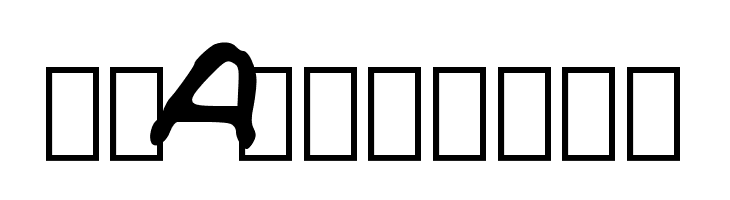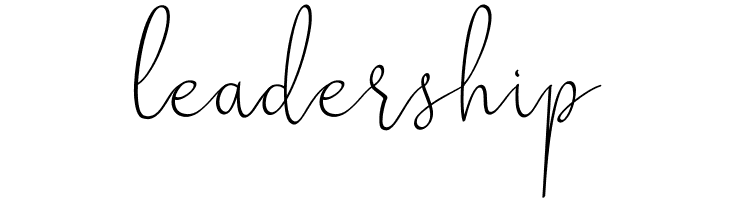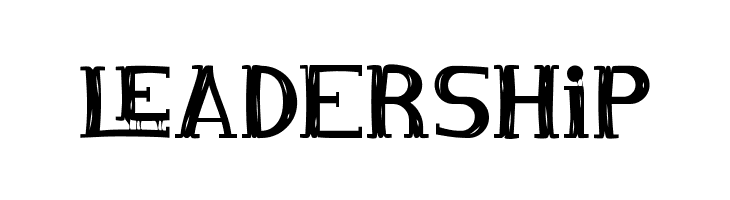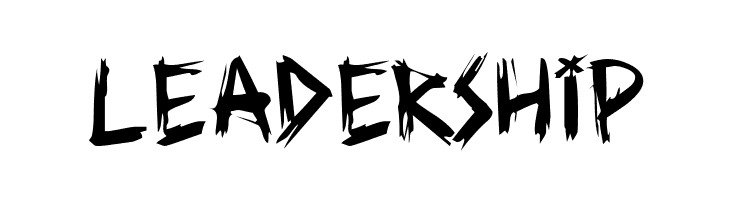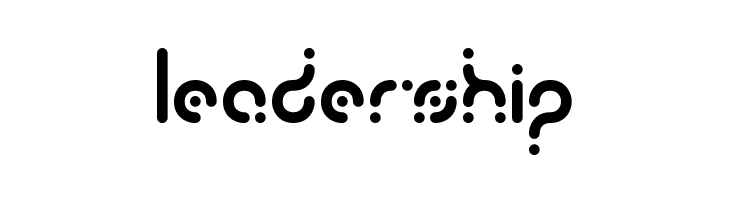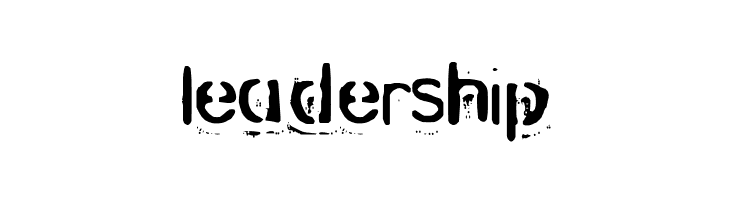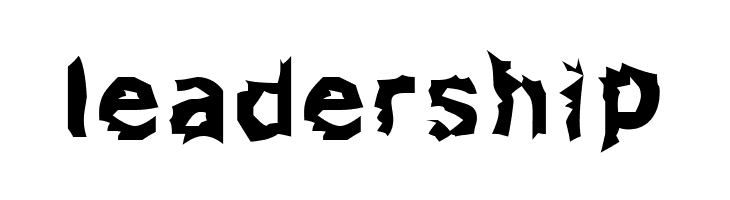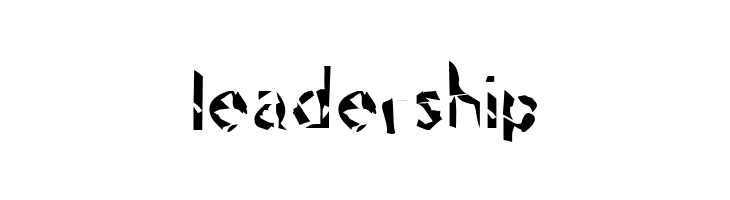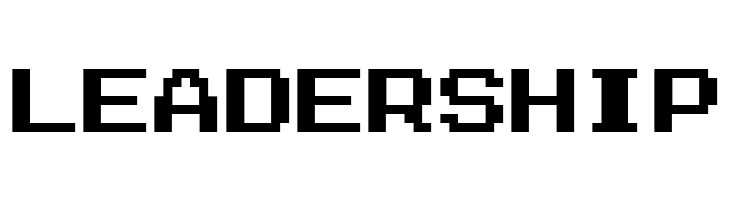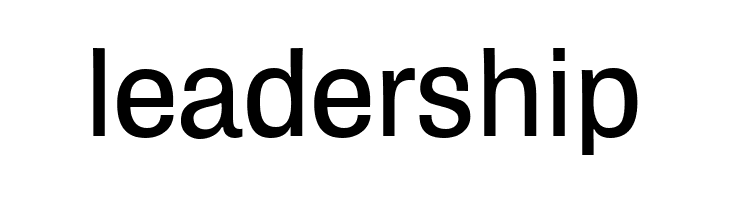
An elegant script font with ornate swashes and flowing curves.
A bold, geometric font with angular letterforms and a modern, futuristic style.
A pixelated, retro-style font inspired by classic video games.
A bold, geometric font with thick, angular strokes.
A bold, futuristic font with a three-dimensional outline style.
A dynamic and fluid script font with elegant, flowing letterforms.
A graceful and flowing script font with an elegant handwritten style.
A bold, textured font with a handcrafted, vintage feel.
A bold, italicized font with a dynamic and modern style.
A bold, pixelated font with a retro, 8-bit digital aesthetic.
A bold, jagged font with a rebellious, graffiti-inspired style.
A bold, edgy, hand-drawn font with sharp, jagged edges and dynamic strokes.
A playful, hand-drawn font with a whimsical and dynamic style.
A whimsical, hand-drawn font with irregular, organic shapes and dynamic strokes.
A bold, playful, and hand-drawn font with a whimsical style.
A dynamic, italicized handwritten font with fluid, cursive strokes.
A playful, hand-drawn font with irregular strokes and a whimsical style.
A bold, graffiti-inspired font with angular, dynamic lines and a rebellious spirit.
A bold, decorative font with rounded shapes and dot accents, offering a playful and futuristic look.
A bold, decorative font with a blend of modern and vintage elements.
A bold, distressed font with a grunge-like, hand-drawn appearance.